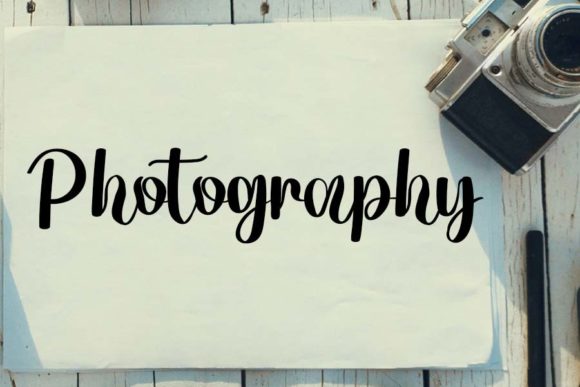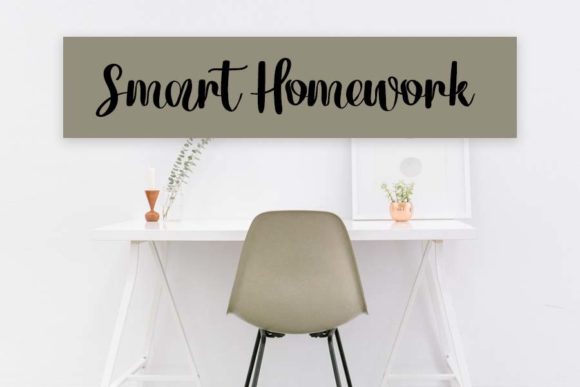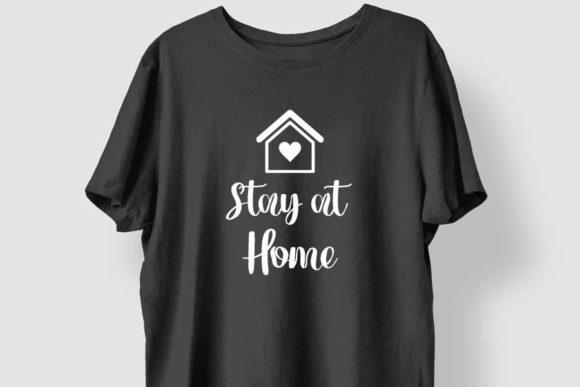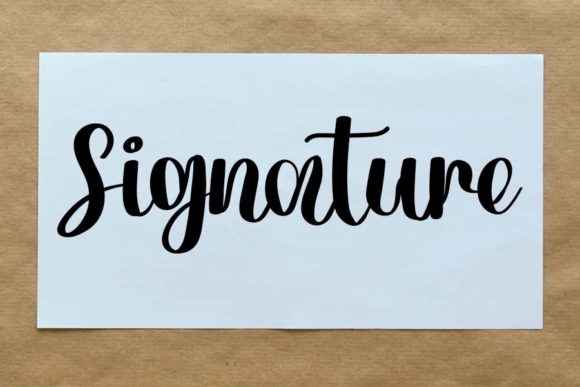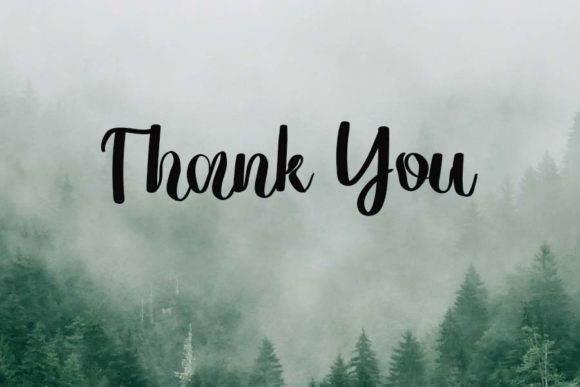
Introducing Handwritting Font: The Ultimate Choice for Designers and Crafters
Are you tired of using the same old fonts in your designs? Look no further! Handwritting Font is here to revolutionize your creative projects with its chic and round lettered handwritten style. This beautiful font is perfect for designers and crafters who want to add a personal touch to their work. In this article, we’ll dive into the world of Handwritting Font and explore its unique features, benefits, and uses.
The Charm of Handwritting Font
Handwritting Font is a natural and unique font that exudes warmth and personality. Its handwritten style is reminiscent of a personal letter or a heartfelt note, making it perfect for designs that require a touch of elegance and sophistication. The font’s round letters and smooth curves create a sense of fluidity and movement, making it a joy to read and look at.
Why Choose Handwritting Font?
So, what makes Handwritting Font stand out from the rest? Here are just a few reasons why designers and crafters love this font:
- Versatility: Handwritting Font is incredibly versatile and can be used in a wide range of designs, from wedding invitations and greeting cards to branding and packaging.
- Uniqueness: This font’s handwritten style ensures that your designs will stand out from the crowd and leave a lasting impression on your audience.
- Elegance: Handwritting Font adds a touch of elegance and sophistication to any design, making it perfect for high-end brands and luxury products.
- Readability: The font’s smooth curves and clear letters make it easy to read, even at small sizes.
How to Use Handwritting Font in Your Designs
Handwritting Font is incredibly easy to use and can be incorporated into your designs in a variety of ways. Here are a few ideas to get you started:
- Wedding Invitations: Use Handwritting Font to create beautiful and elegant wedding invitations that set the tone for your special day.
- Branding and Packaging: Add a personal touch to your brand with Handwritting Font, perfect for luxury products and high-end services.
- Greeting Cards: Create heartfelt and personalized greeting cards for special occasions, such as birthdays, anniversaries, and holidays.
- Social Media Graphics: Use Handwritting Font to create eye-catching social media graphics that stand out from the crowd.
Tips and Tricks for Working with Handwritting Font
Here are a few tips and tricks to help you get the most out of Handwritting Font:
- Pair it with other fonts: Experiment with pairing Handwritting Font with other fonts to create a unique and visually appealing combination.
- Use it sparingly: Use Handwritting Font sparingly to add emphasis and create visual interest in your designs.
- Experiment with colors: Try out different colors and textures to add depth and personality to your designs.
In conclusion, Handwritting Font is a beautiful and versatile font that is perfect for designers and crafters who want to add a personal touch to their work. Its natural and unique style makes it incredibly fitting for a wide range of designs, from wedding invitations and greeting cards to branding and packaging. With its elegance, readability, and versatility, Handwritting Font is sure to become a favorite in your design arsenal. So why wait? Fall in love with Handwritting Font and bring your projects to the highest levels!